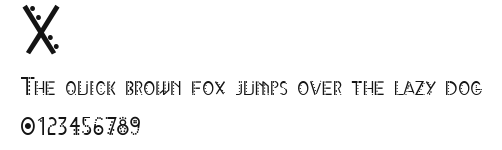
X Preview
• Font Name: X
• Font Style: yman Normal
• Font ID: Alts:Lyman Normal
• Full Font Name: Lyman Normal
• PostScript Name: Lyman-Normal
About X.ttf
X.ttf is a modern, elegant sans-serif font designed for ultimate readability and visual harmony. Perfect for branding, headlines, web design, and print materials.